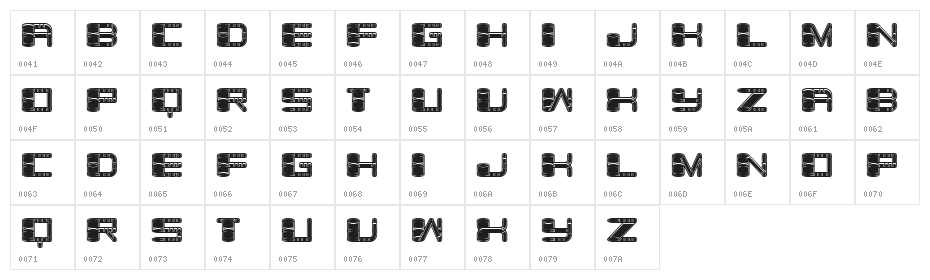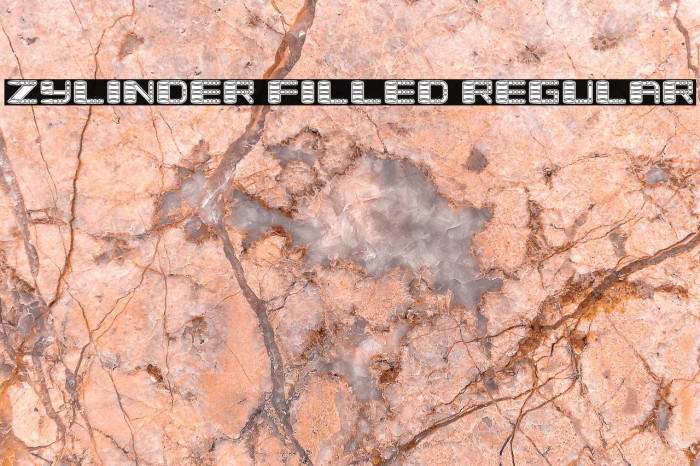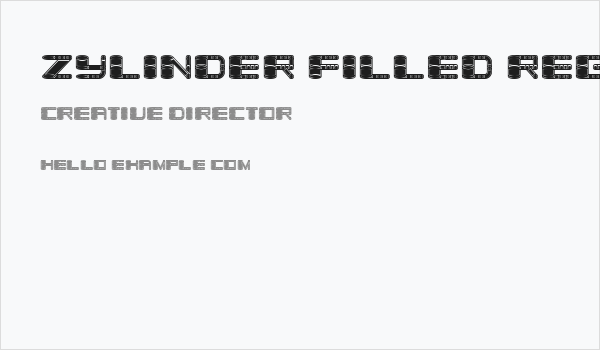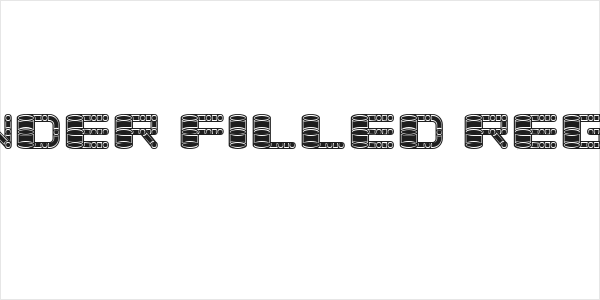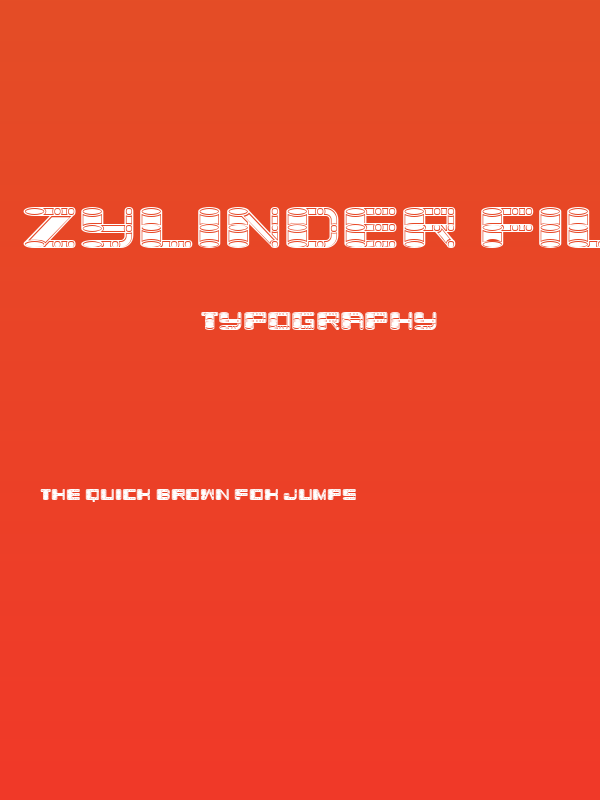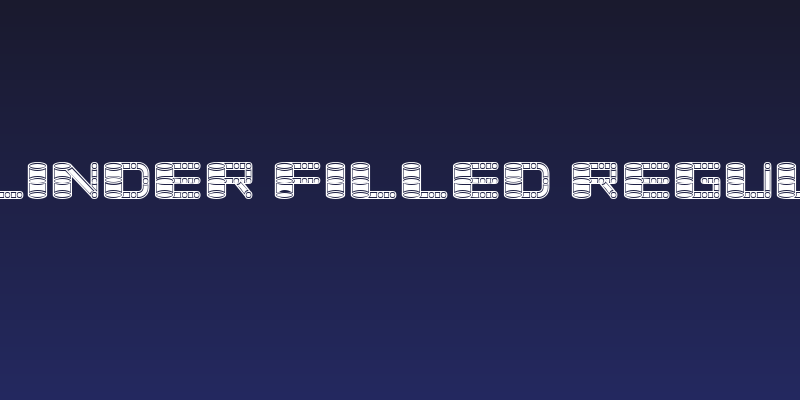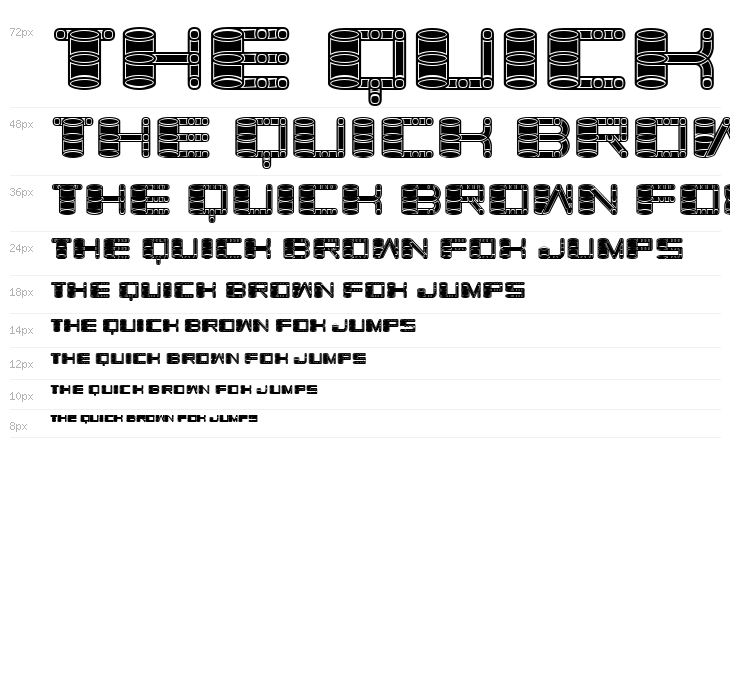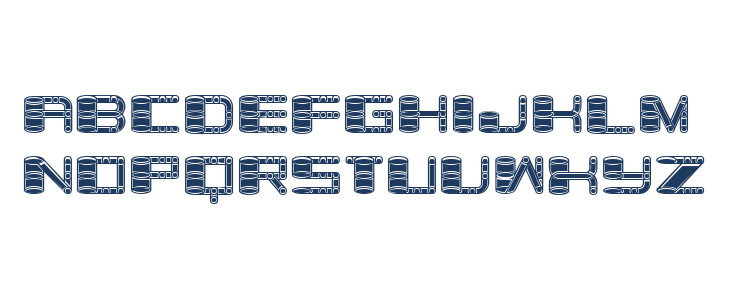
Zylinder Filled Regular Font
Zylinder Filled Regular Description
This font features a unique, industrial design with a filled pattern that resembles mechanical or electronic components. Each character is constructed with a bold outline and intricate internal detailing, giving it a futuristic and technical appearance. The uppercase letters are uniform in height, while the lowercase letters maintain a consistent style, enhancing readability. The numbers and special characters follow the same design principles, ensuring a cohesive look across all glyphs. The font's distinct style makes it ideal for projects that require a modern, tech-inspired aesthetic.
| Proposed Projects | Ideal for technology branding, sci-fi themed posters, video game titles, and industrial design projects. |